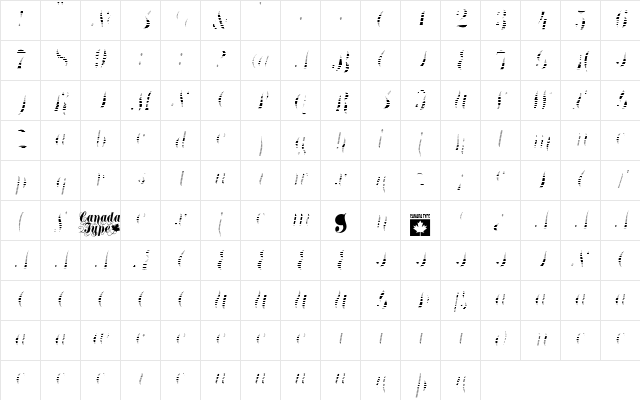
Treasury System SSS Regular
| Foundry | Canada Type |
Design Context for Treasury System SSS Typeface
Treasury System SSS is a composed and adaptable typeface that performs quietly and consistently across a wide range of design contexts.